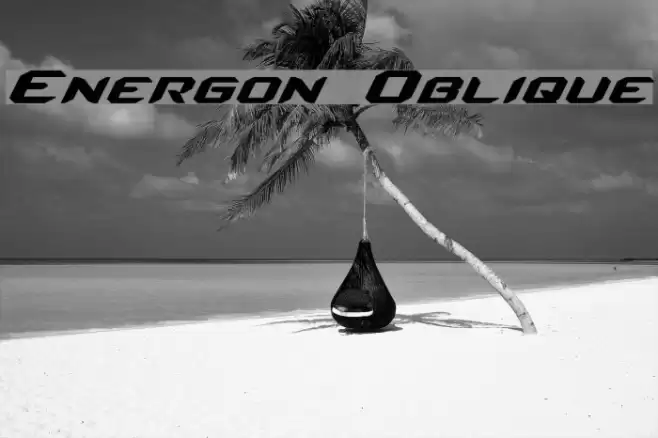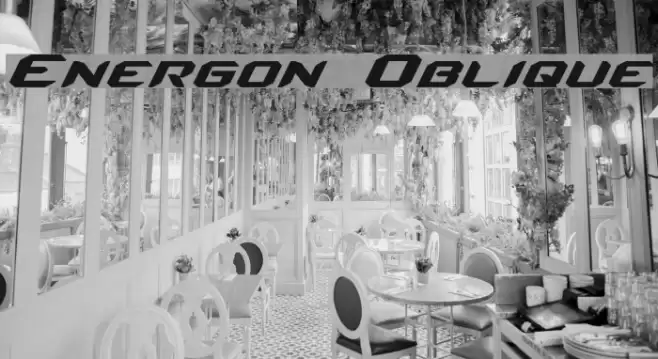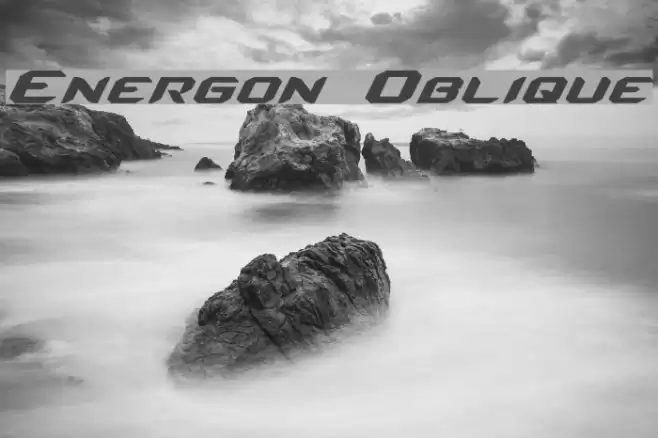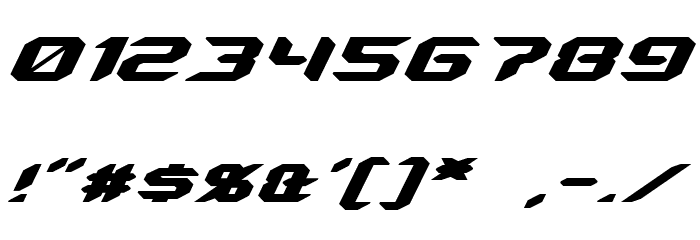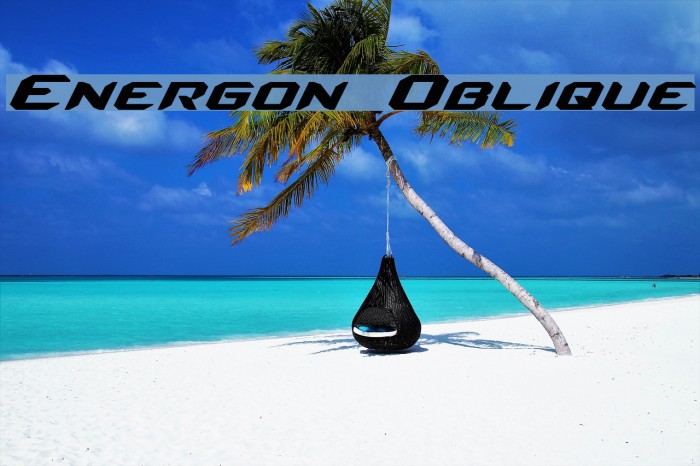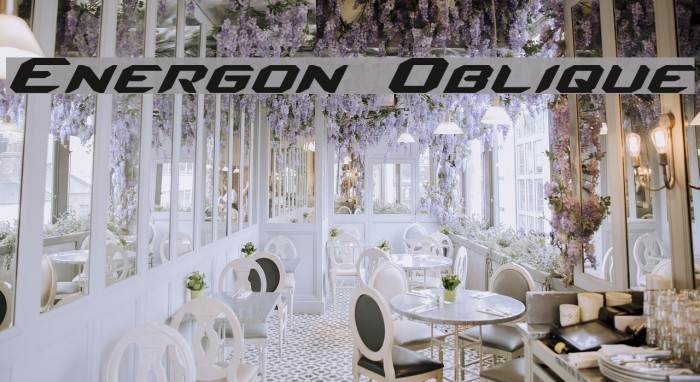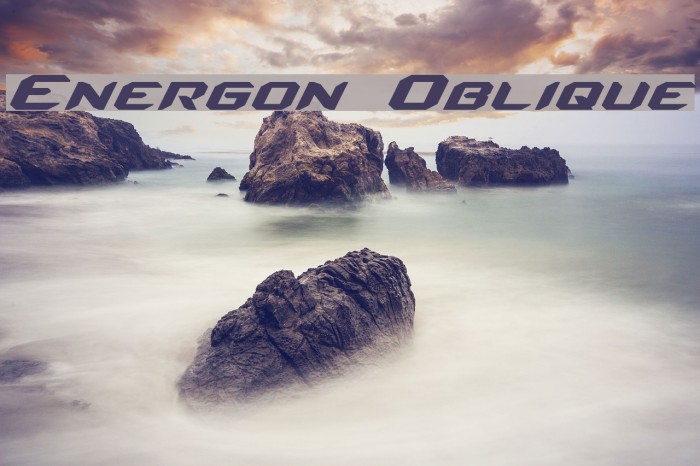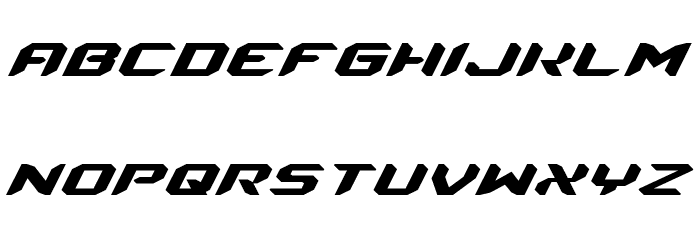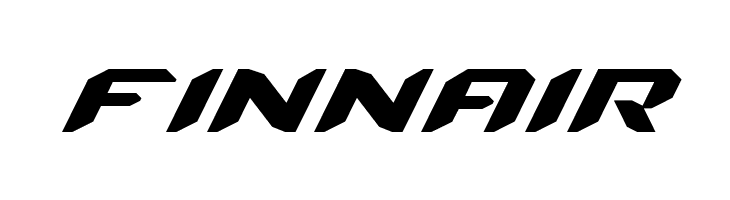
Energon Oblique Font
Energon Oblique Description
This font features a bold, futuristic design with sharp, angular edges and a distinct oblique slant, giving it a dynamic and energetic appearance. The characters are wide and robust, with a consistent stroke weight that emphasizes its modern and tech-inspired aesthetic. The uppercase letters are particularly striking, with a geometric style that suggests movement and speed. The numerals and special characters maintain this cohesive look, making the font suitable for a variety of digital and print applications. Its unique style is ideal for projects that require a strong, impactful visual presence.
A bold, futuristic font with sharp angles and an oblique slant from Uncategorized fonts.
- Proposed Projects: Ideal for sci-fi themed designs, video game graphics, tech branding, and dynamic posters.